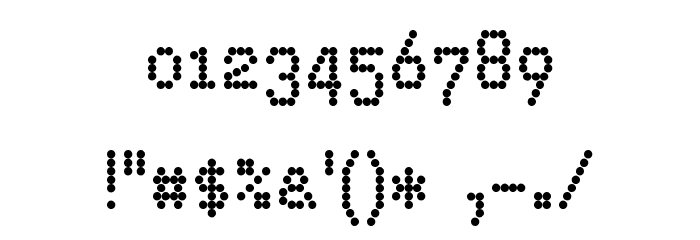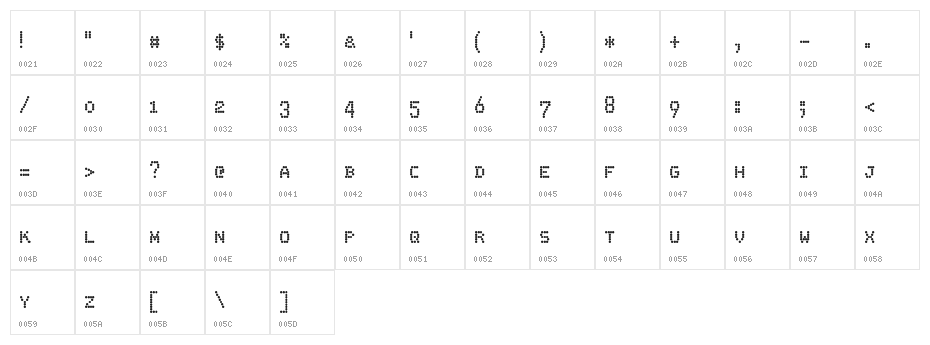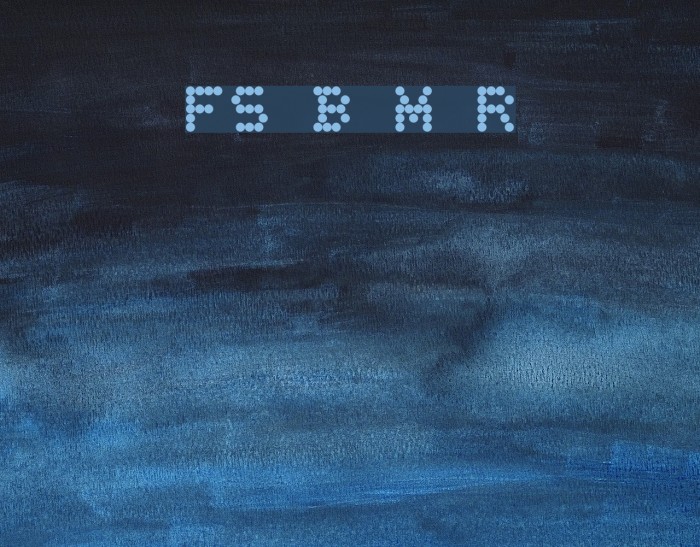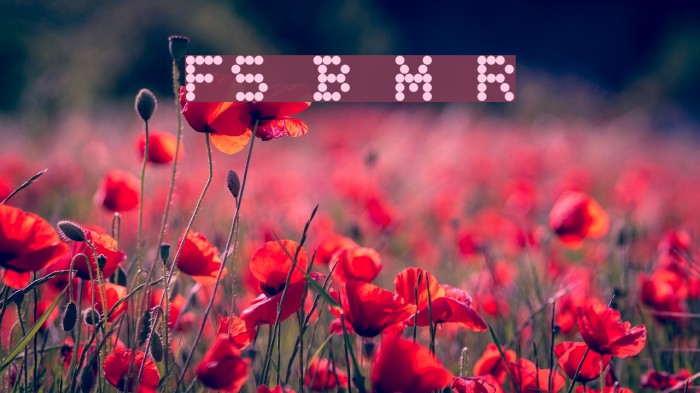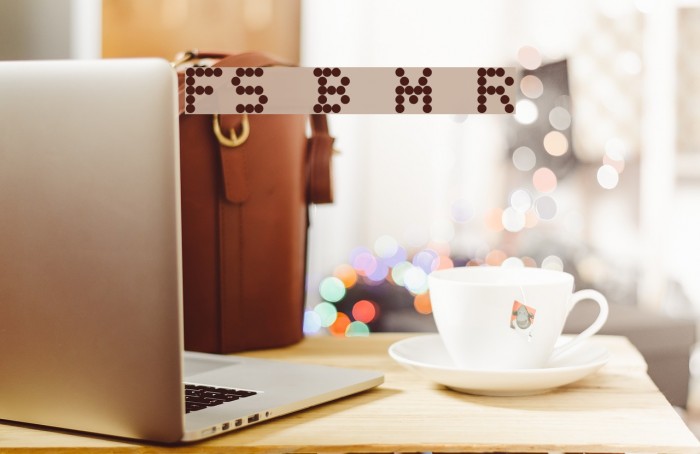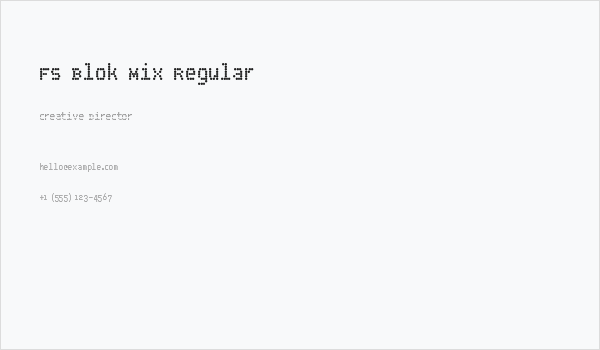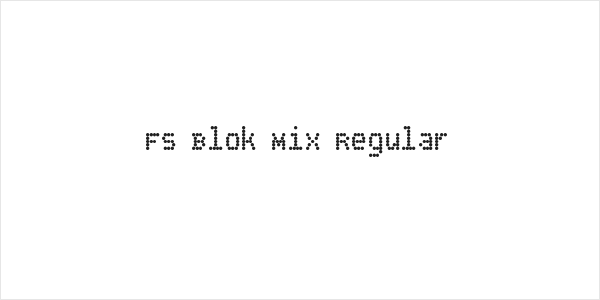
FS Blok Mix Regular Font
FS Blok Mix Regular Description
This font features a unique dot matrix style, where each character is constructed from a grid of evenly spaced dots. The design is reminiscent of retro digital displays, offering a distinct and playful aesthetic. The uppercase and lowercase letters maintain consistent spacing and alignment, creating a uniform appearance. Numbers and special characters follow the same dot pattern, ensuring visual coherence across all elements. The font's geometric structure gives it a modern yet nostalgic feel, suitable for projects that require a blend of technology and creativity.
| Overall Style | Modern, Retro |
| Proposed Projects | Ideal for digital art, retro-themed designs, tech-related branding, and creative posters. |